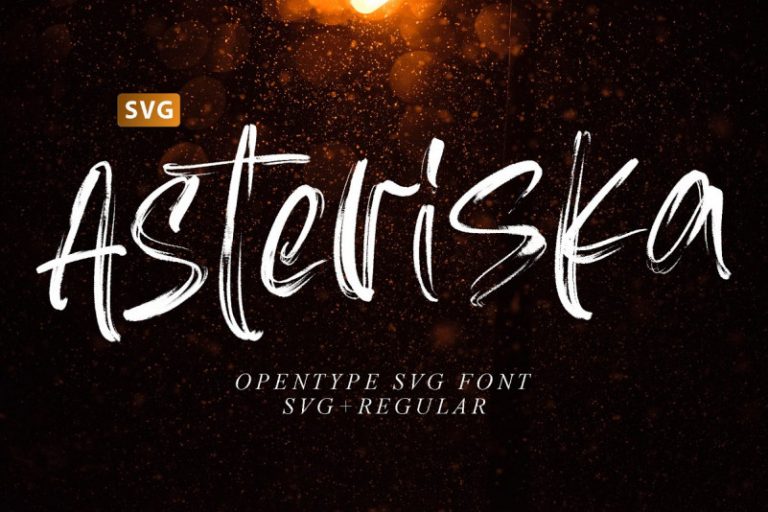
Asteriska SVG Font
Continue to be a free font package a solid brush font. This is a SVG watercolour brush font with a heavy textured look. Introducing Asteriska Font. Asteriska SVG Font is the newest font from us that is SVG type. This Asteriska font has the advantage of a random texture but is still pleasing to the eye and this applies to all letters. This font looks strong, realistic, and different from other fonts. This font is very suitable for various media and different design styles.